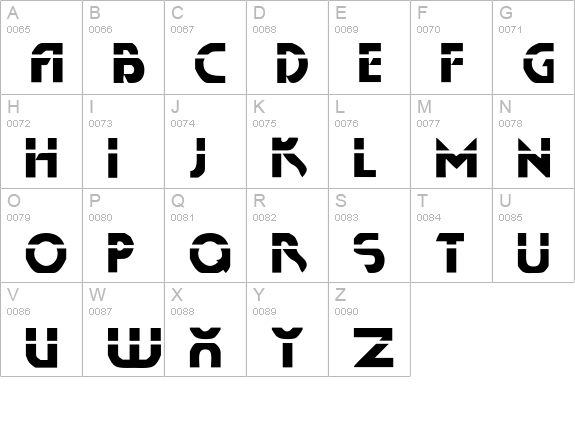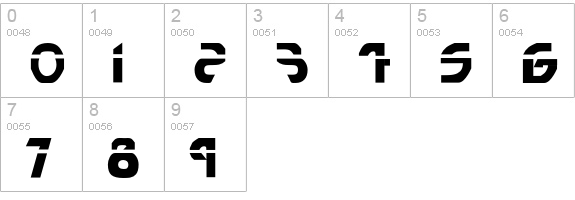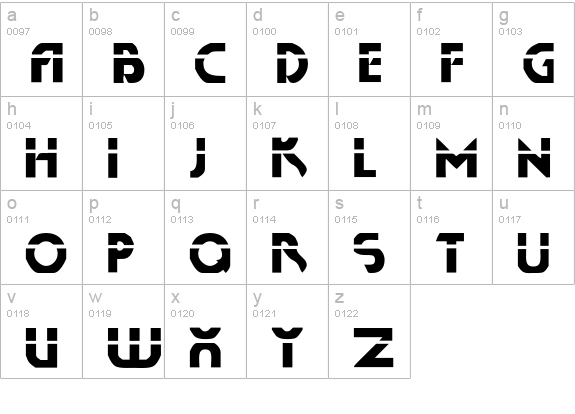
Runner Font Details
The Runner font is a sleek and modern typeface designed for those who seek speed and elegance in their designs. Its clean lines and sharp angles give it a futuristic vibe, perfect for projects that require a touch of sophistication. The Runner font is versatile and can be used for a variety of purposes, from branding to editorial design. What makes the Runner font even more appealing is that it is completely free to download at FontsMarket.com. This means you can elevate your designs without breaking the bank. Don't miss out on the opportunity to add this dynamic font to your collection and take your projects to the next level with the Runner font.